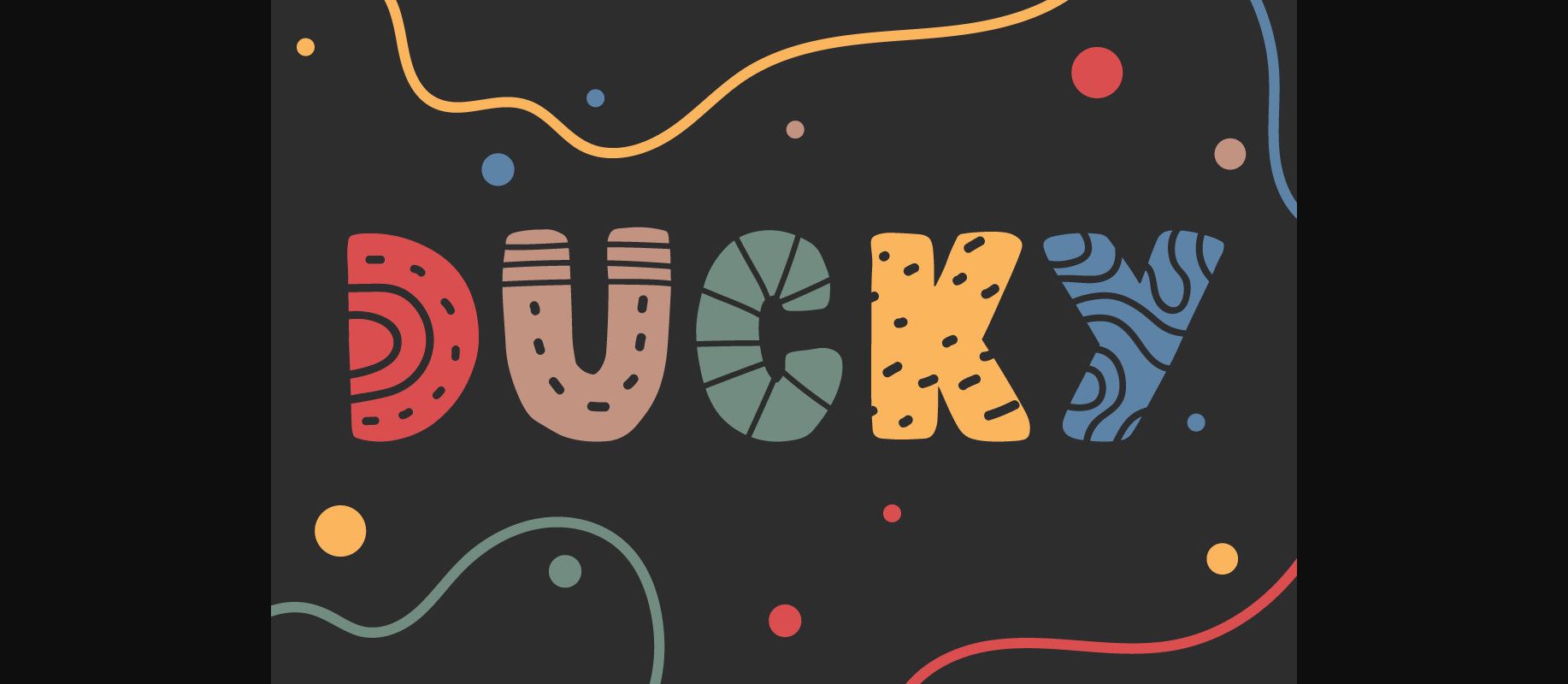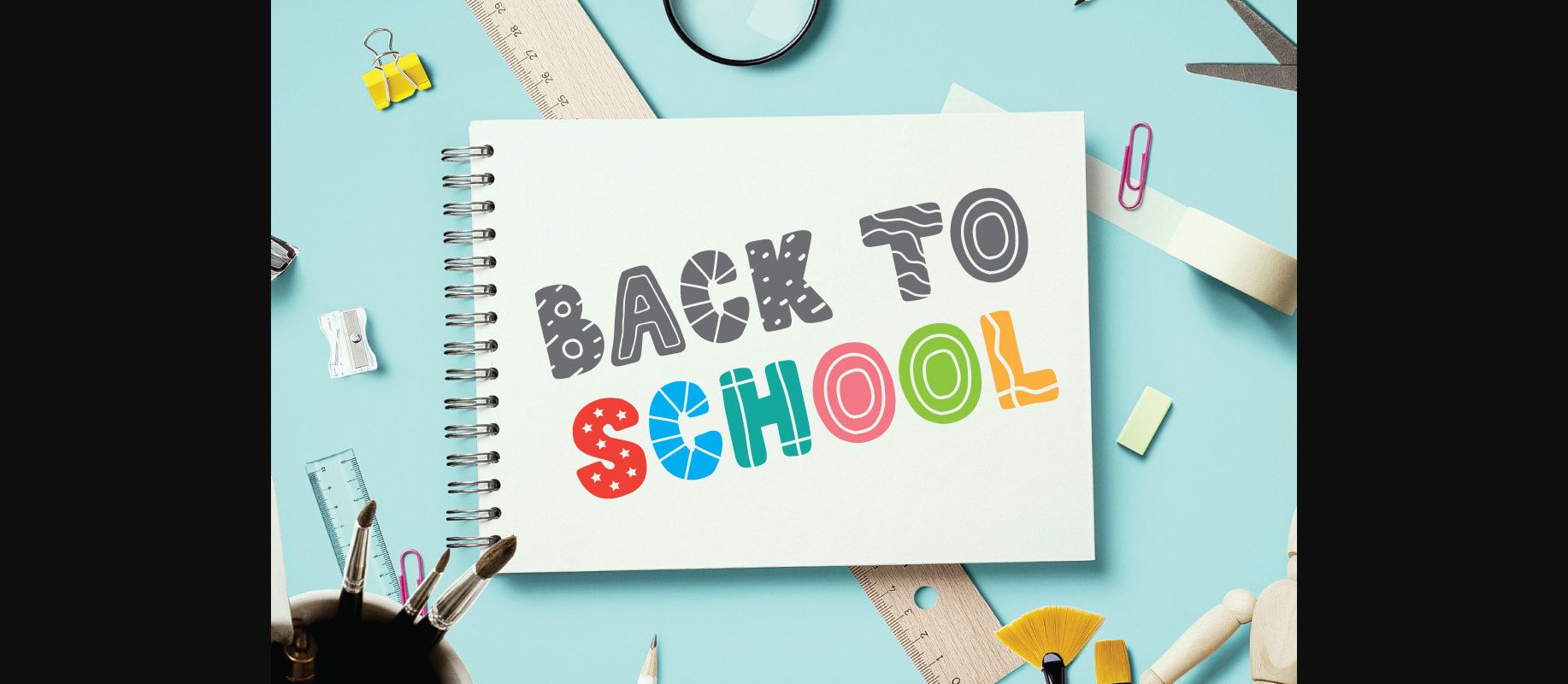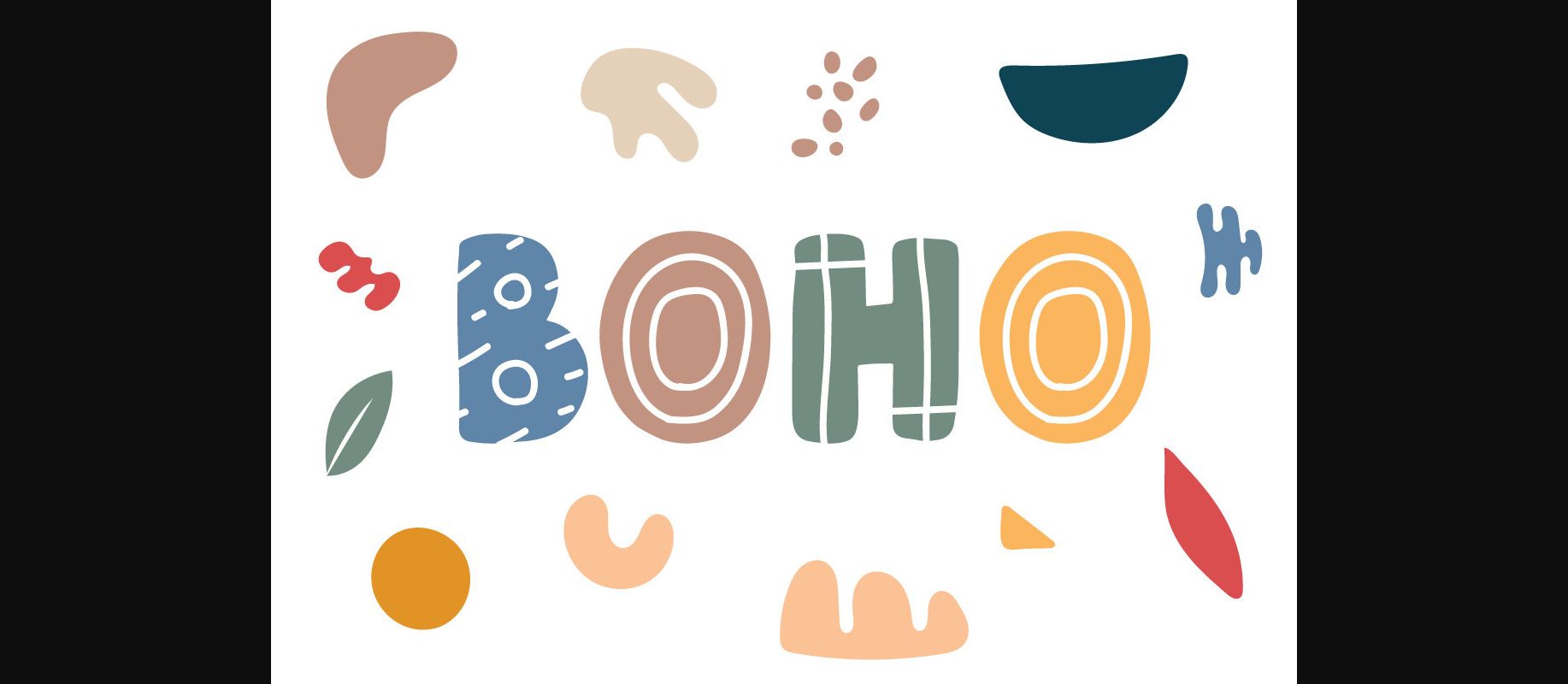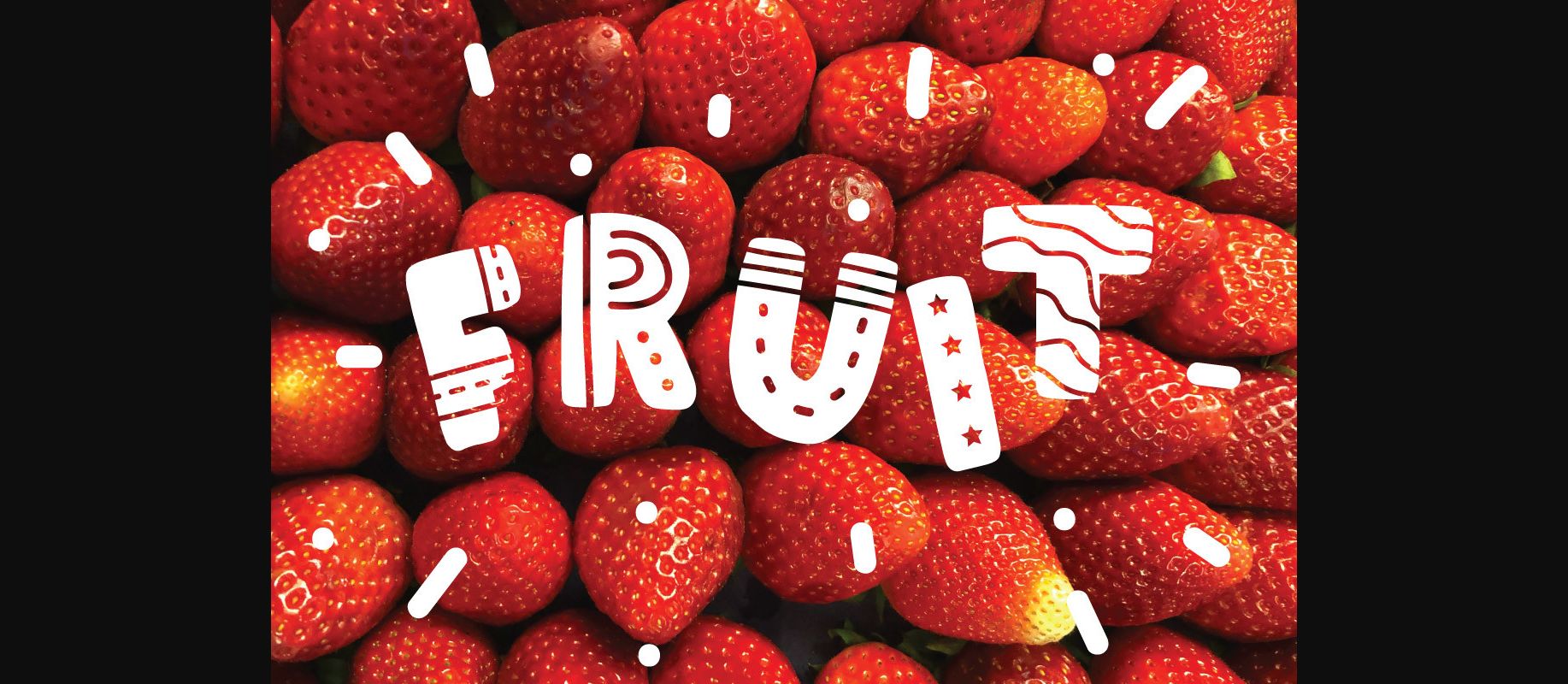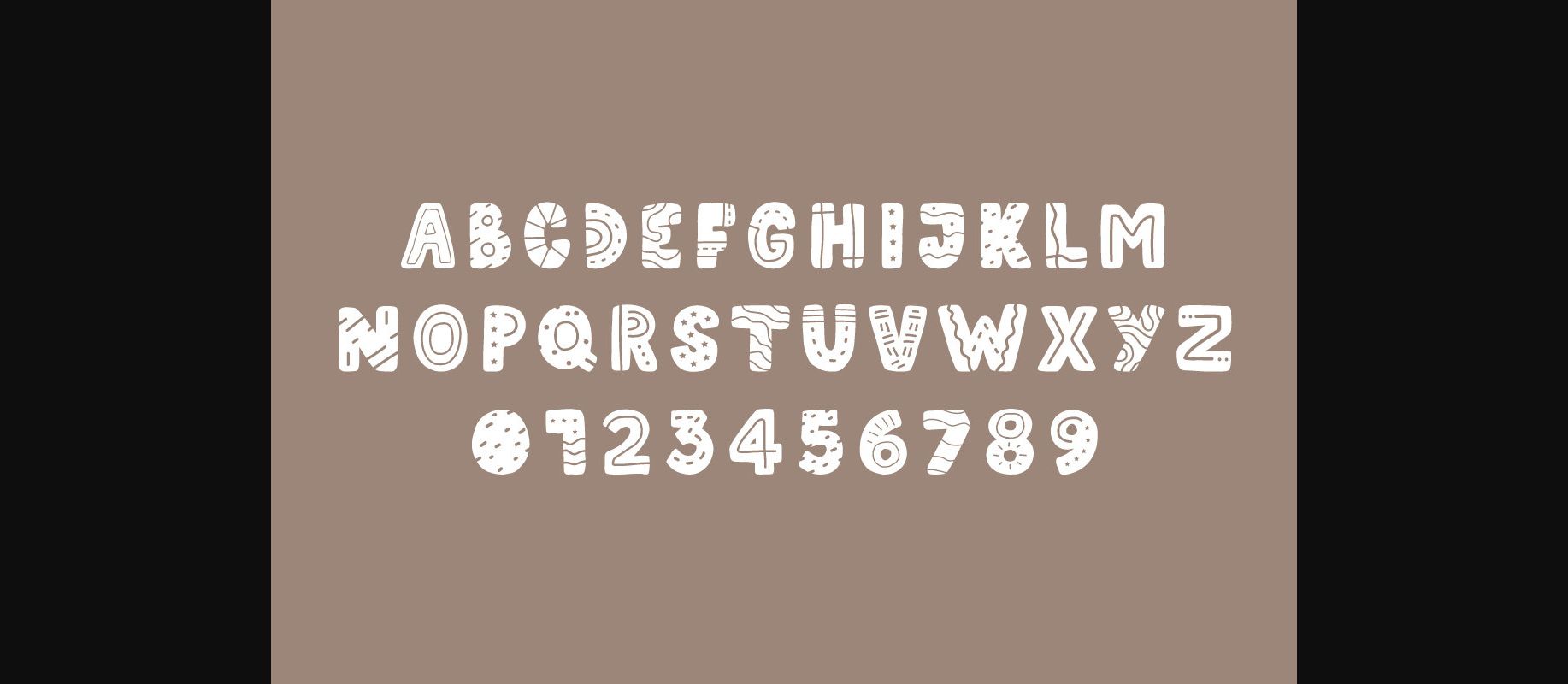
About Ducky Font
Ducky is a cute decorative font with abstract shapes inside.
It is perfect for any titles, logos, product packaging, branding projects, magazines, social media, weddings and so much more!